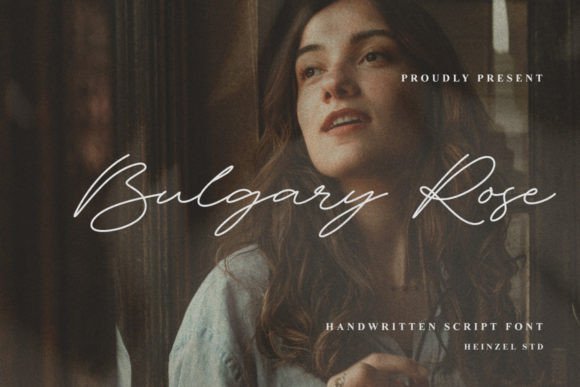
Behold the alluring charm of Bulgary Rose, a script font that will enchant your digital designs with its graceful strokes and elegant allure. Immerse yourself in the world of typography, where Bulgary Rose reigns supreme as the perfect font for your heartfelt wedding hashtags. Allow this font to eloquently express the joy, love, and commitment that fills the air on your special day.
With Bulgary Rose, your wedding hashtag will blossom into a visual masterpiece, captivating the hearts of your guests and leaving an everlasting impression. Its delicate curves and flowing lines mirror the beauty of a blooming rose, adding a touch of timeless elegance to your social media posts. Let your hashtag shine as a symbol of your eternal love.
Bulgary Rose isn't just limited to hashtags; it's a font of limitless possibilities. Its versatility extends to wedding invitations, thank you cards, quotes, greeting cards, logos, business cards, social media, magazines, and marketing materials. With Bulgary Rose, your words will dance off the page with sophistication and grace.
Imagine the awe-inspiring beauty of your wedding invitations adorned with Bulgary Rose's intricate characters. Each letter will tell a tale of love, inviting your guests to celebrate your joyous occasion in style. Thank you cards will transform into heartfelt expressions of gratitude, leaving a lasting memory of your special day.
Bulgary Rose will breathe life into your quotes, turning them into works of art. Its elegant strokes will enhance the impact of your words, adding a touch of inspiration to any message. Greeting cards crafted with Bulgary Rose will carry your warm wishes and heartfelt sentiments with an unmatched charm.
Logos and business cards designed with Bulgary Rose will exude professionalism and creativity. Its unique and eye-catching style will set your brand apart, leaving a lasting impression on clients and customers alike. Social media posts will blossom with elegance as Bulgary Rose elevates your content to new heights, capturing the attention of your audience.
Magazines and marketing materials will radiate sophistication when adorned with Bulgary Rose. Its timeless beauty will add a touch of luxury to your publications, captivating readers and leaving them yearning for more.